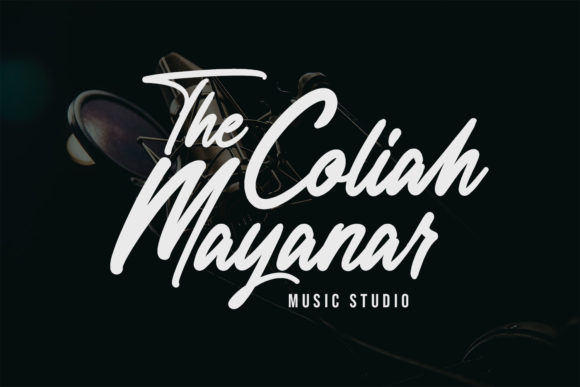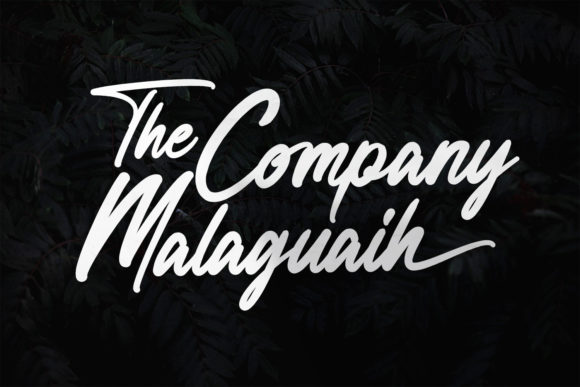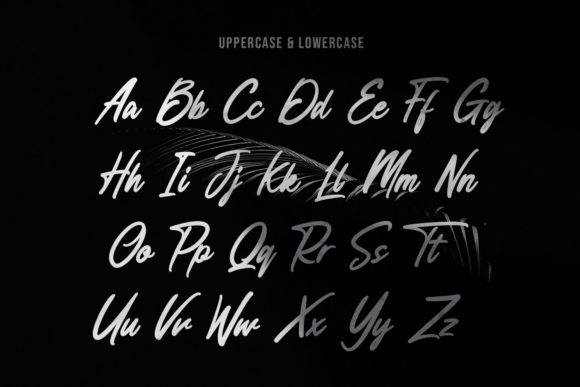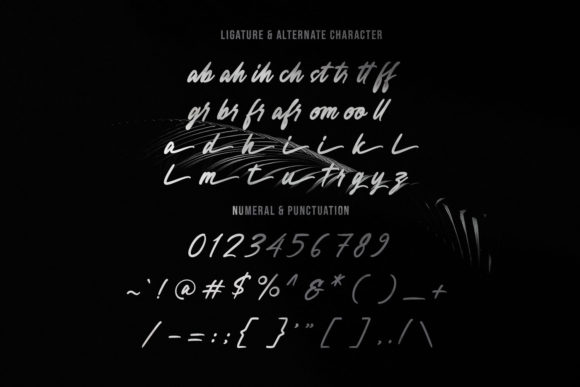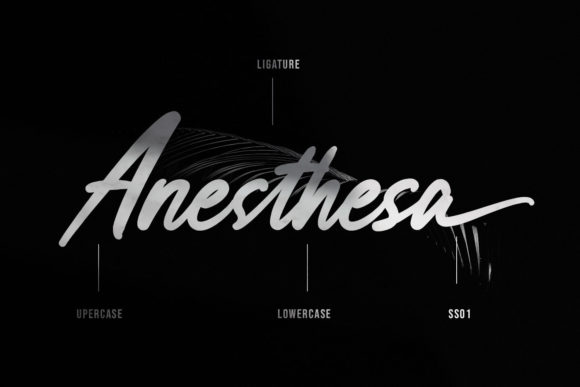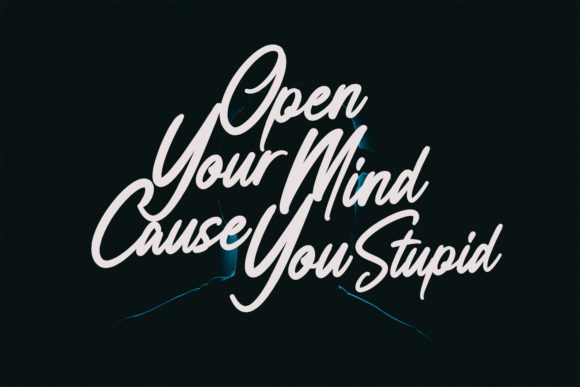
The Magic of Anesthesa Font: Elevating Your Designs with Elegance
I’ll never forget the time I was working on a wedding invitation project, and my client asked for a font that would make their special day feel like a fairytale. I scoured the internet, tried countless fonts, but nothing seemed quite right. That was until I stumbled upon Anesthesa Font. This stunning, paint-brushed script font swept me off my feet, and I knew I had found the perfect fit. In this article, I’ll share my love for Anesthesa, its features, and how to make the most of it in your designs.
An Honest Review of Anesthesa Font
- ✨ Beautiful, cursive script that adds a touch of elegance to any design
- ✅ Perfect for wedding invitations, thank you cards, quotes, and greeting cards
- ✅ Stunning on logos, business cards, and other designs that need a customized touch
- ✅ Easy to read and understand, even in smaller font sizes
While Anesthesa Font is a gorgeous addition to any design, there are a few things to keep in mind:
- ⚠️ Some of the letters may appear a bit inconsistent in terms of brush strokes, which can add to its charm but may not be suitable for very formal designs
- 🤔 It may not be the best choice for body text, as it’s a script font and can be harder to read in large blocks
- Experiment with OpenType features, such as glyphs and stylistic alternates, to add more personality to your text
- Choose Anesthesa from your font list and explore the OpenType features, such as swashes and ligatures, to add more flair to your text
The Designer Inspiration Behind Anesthesa
Anesthesa Font was created with the intention of capturing the elegance and beauty of handwritten script. The designer, inspired by the art of calligraphy and the imperfections of brush strokes, crafted a font that would add a touch of sophistication to any design. With its unique blend of classic and modern elements, Anesthesa Font is sure to become a favorite among designers and crafters alike.
Q: What is Anesthesa Font best used for?
A: Anesthesa Font is perfect for designs that require a touch of elegance and sophistication, such as wedding invitations, thank you cards, quotes, and greeting cards.
Q: Is Anesthesa Font easy to read?
A: Yes, Anesthesa Font is generally easy to read, even in smaller font sizes. However, it’s a script font, so it may not be the best choice for large blocks of text.